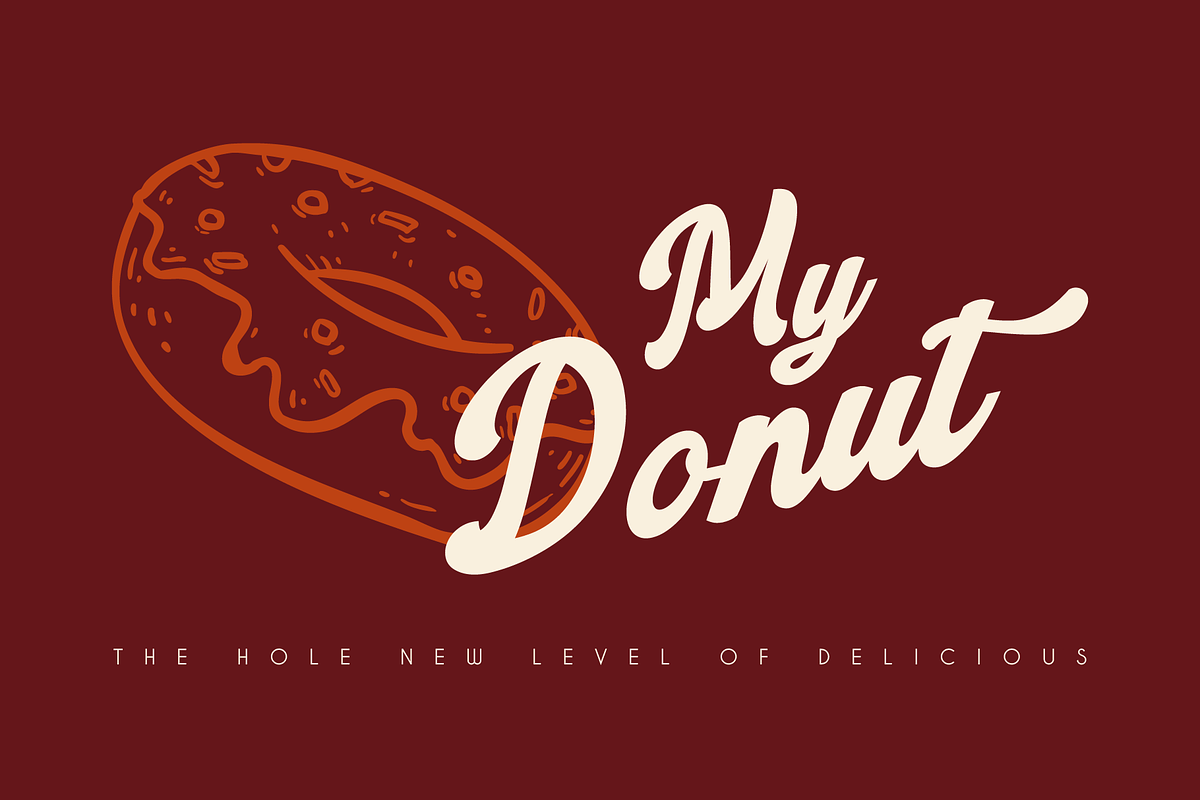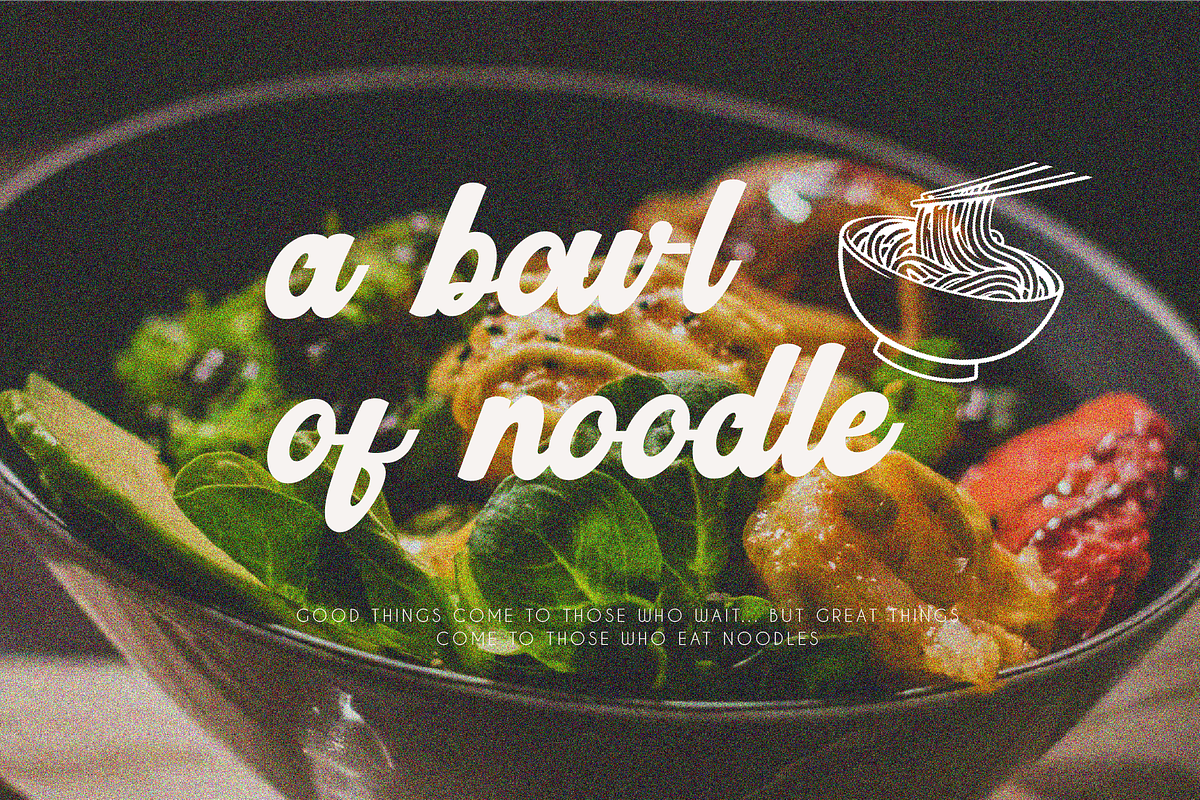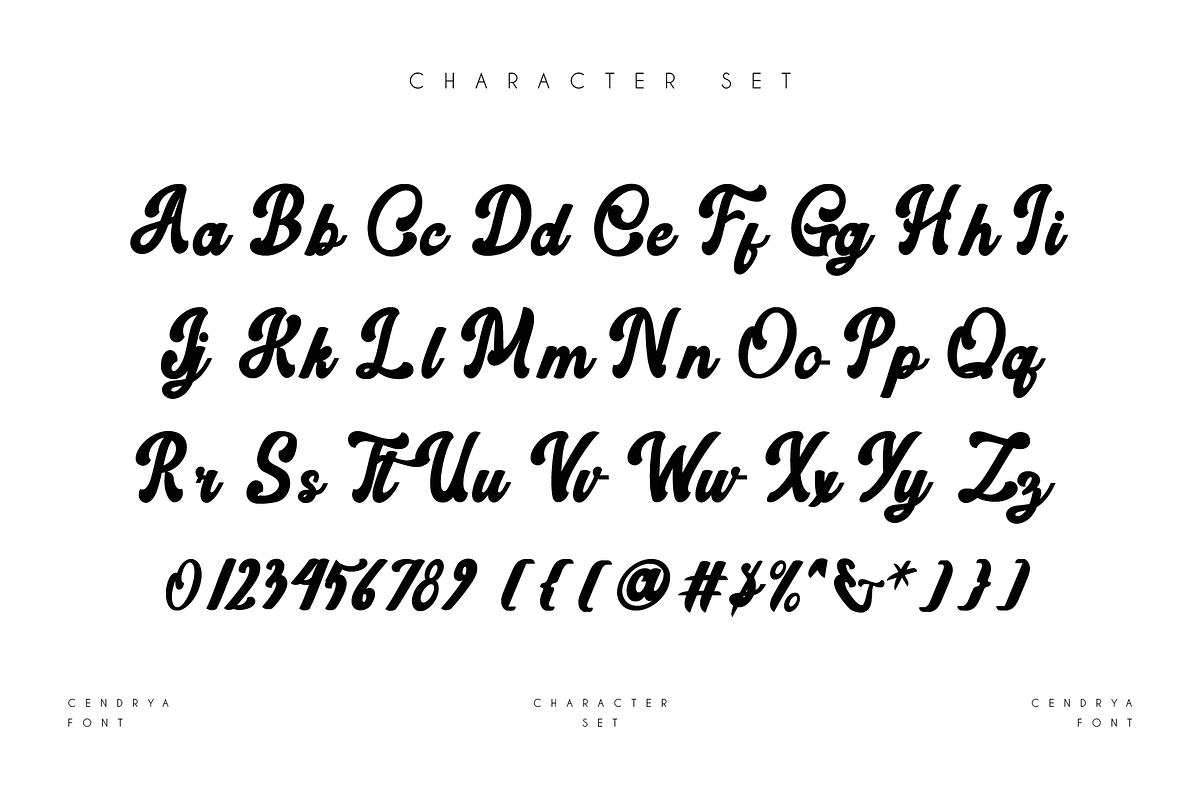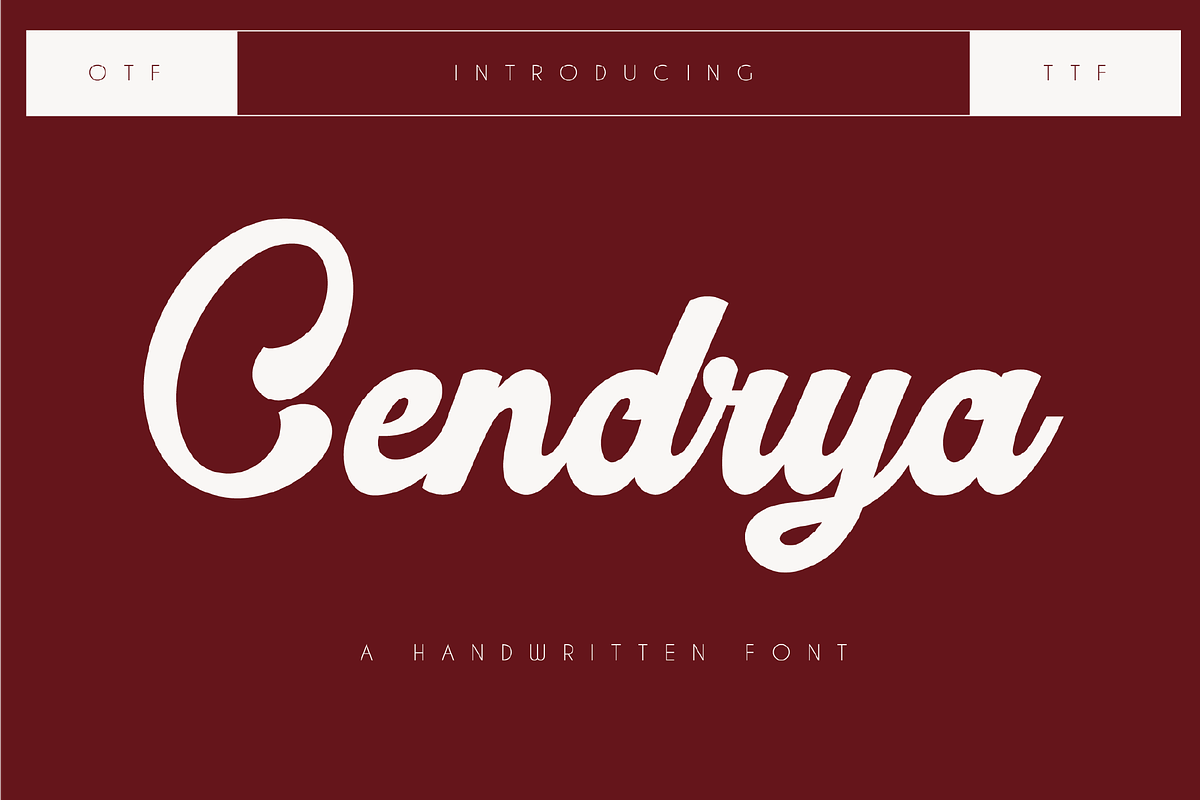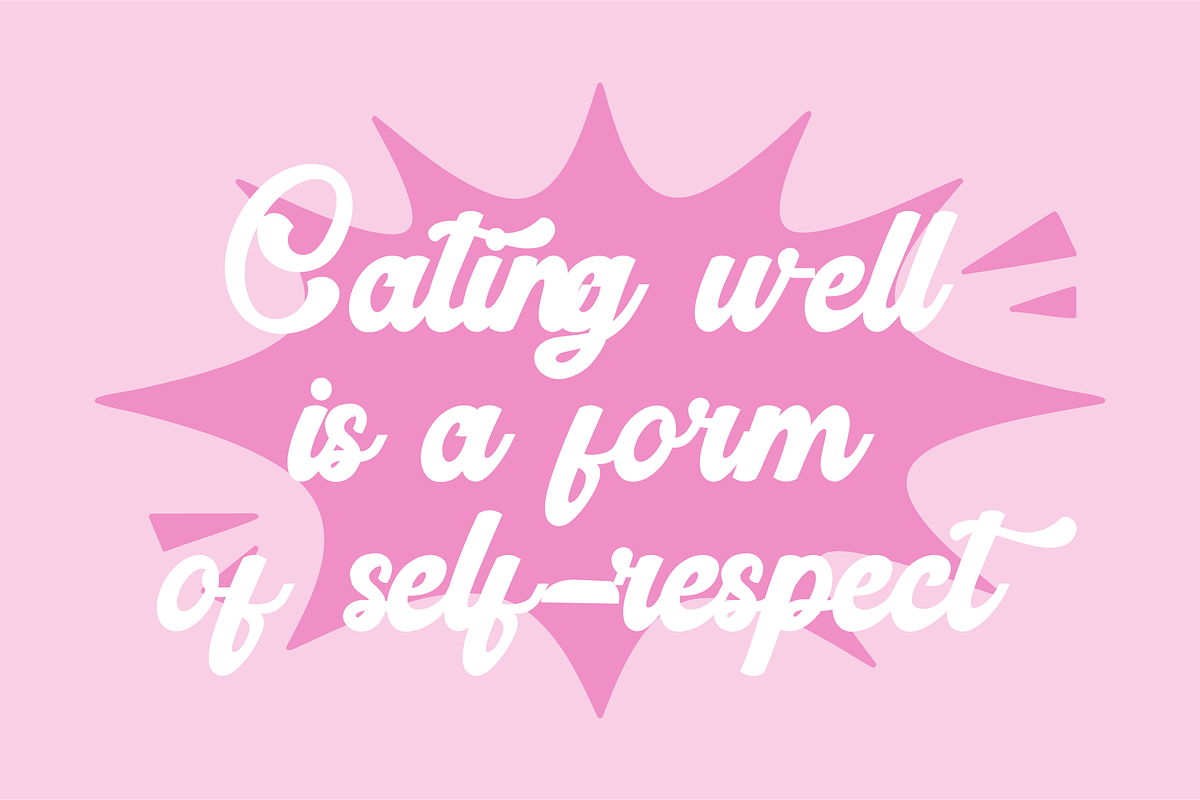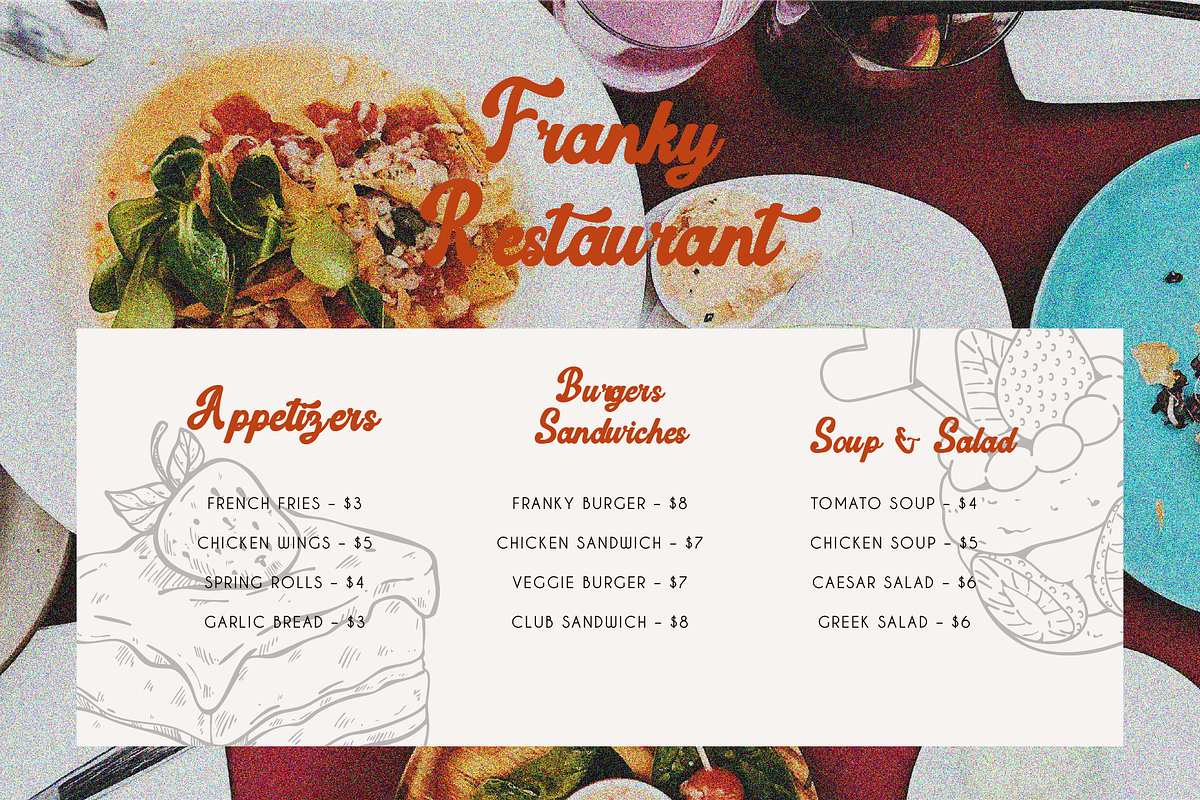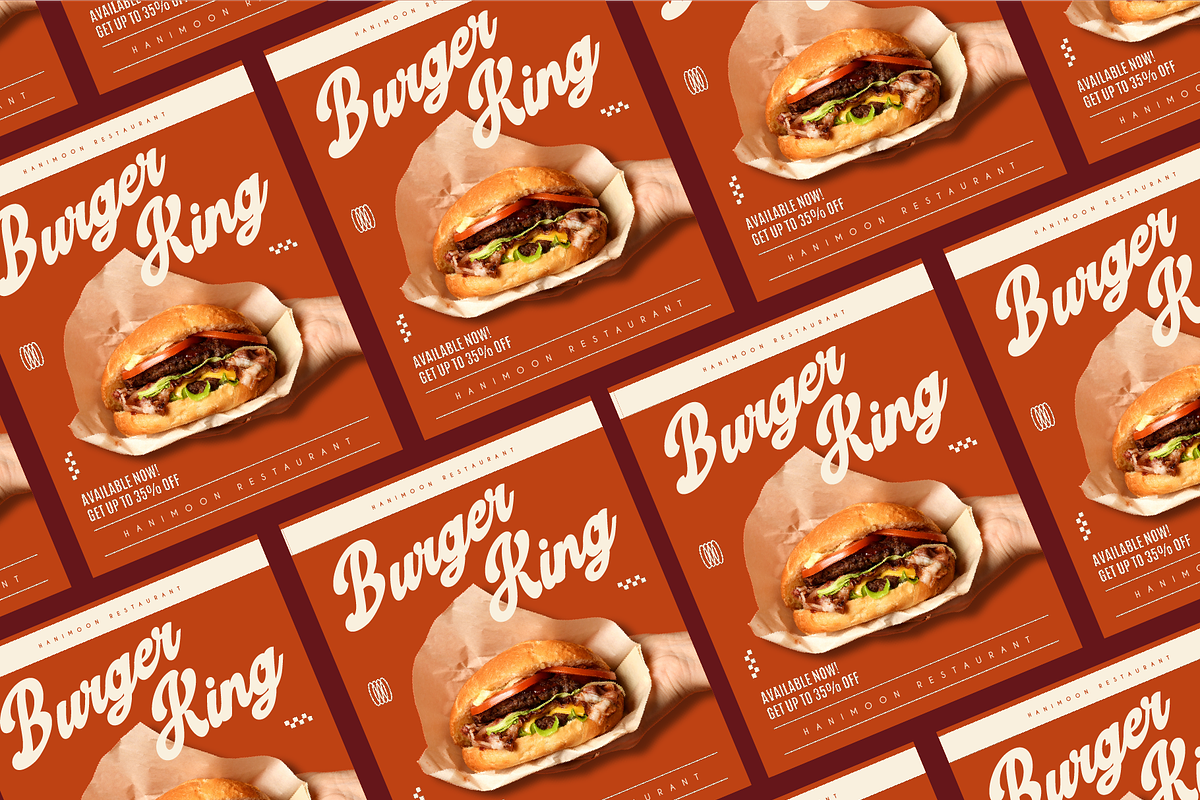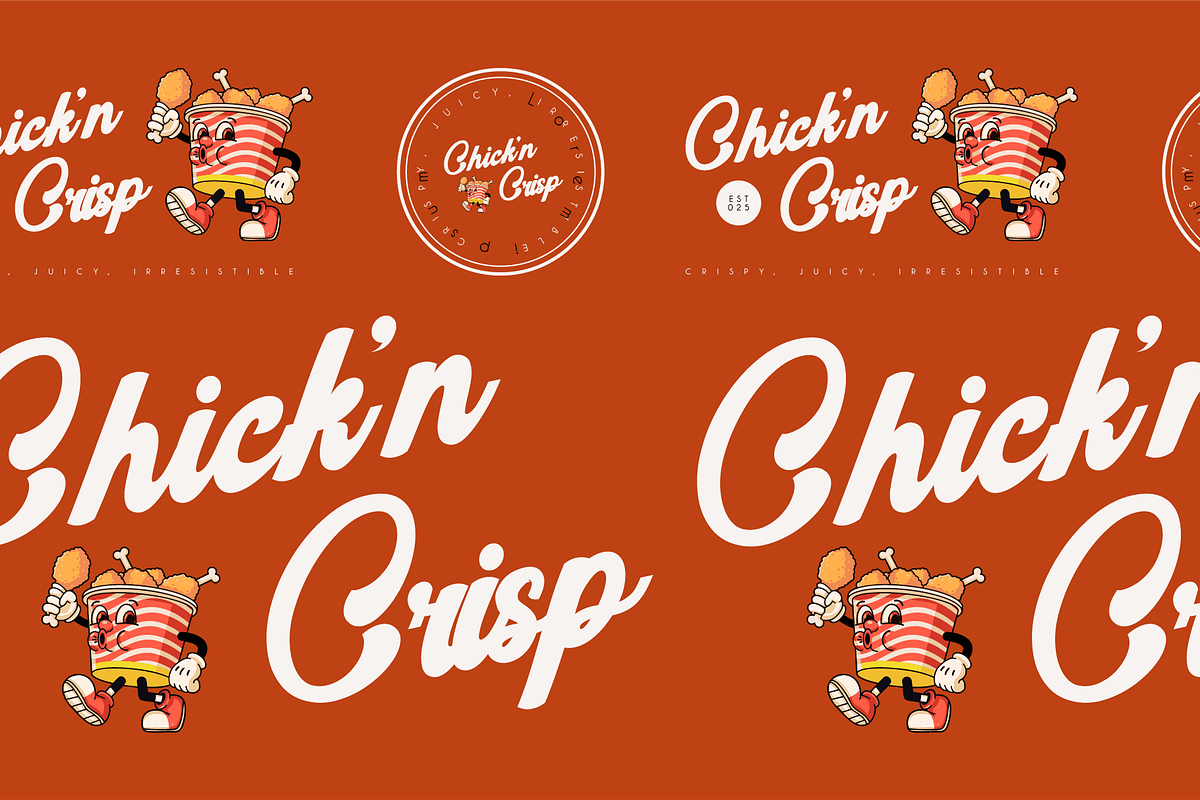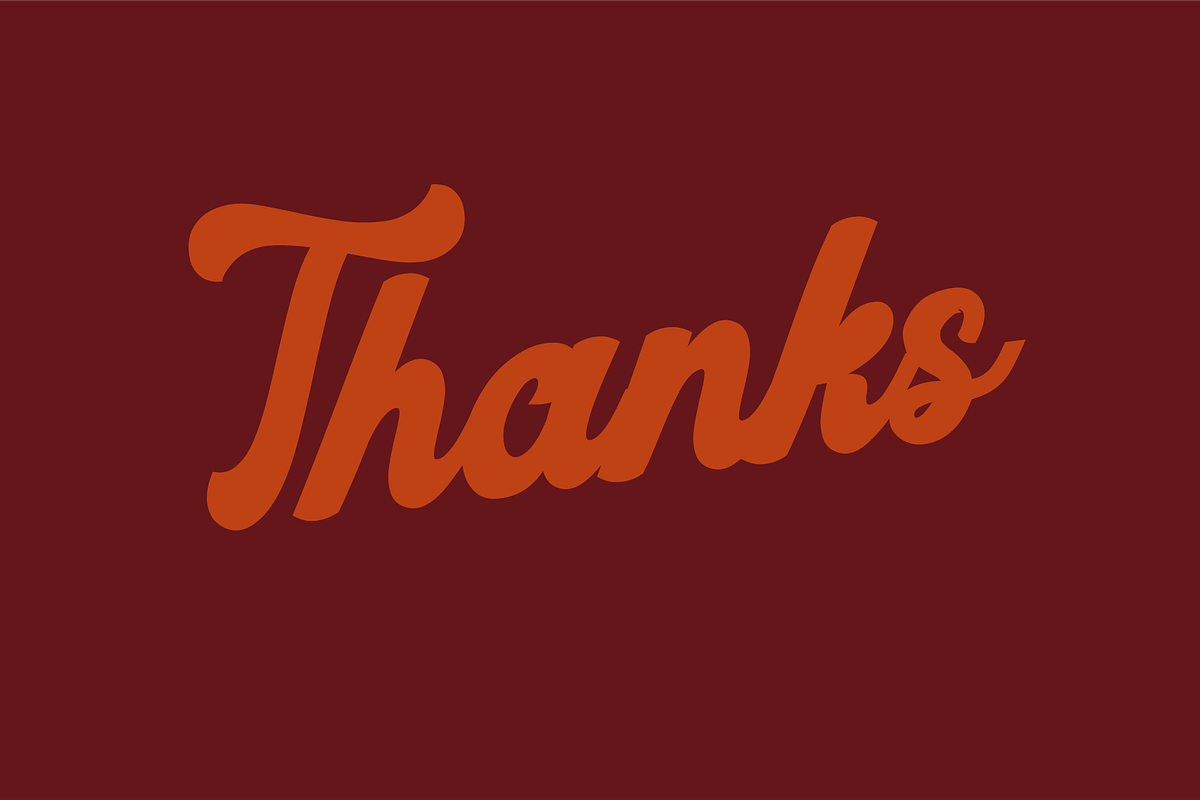
Cendrya - A Handwritten Font
Cendrya is a charming and elegant handwritten script font that blends fluid strokes with a casual yet refined look. Its smooth, flowing curves and natural feel make it perfect for adding a personal touch to any project. Whether you're creating wedding invitations, social media posts, or branding for creative businesses, Cendrya brings an effortlessly stylish look with its handcrafted appearance.